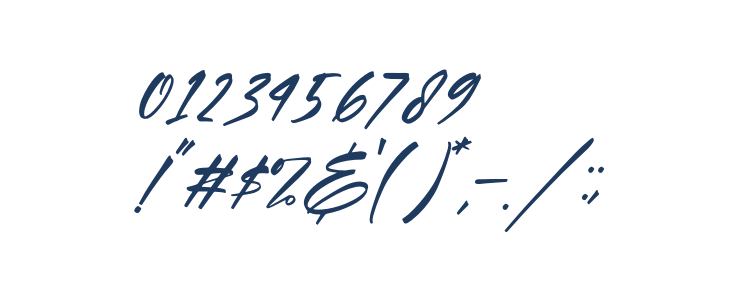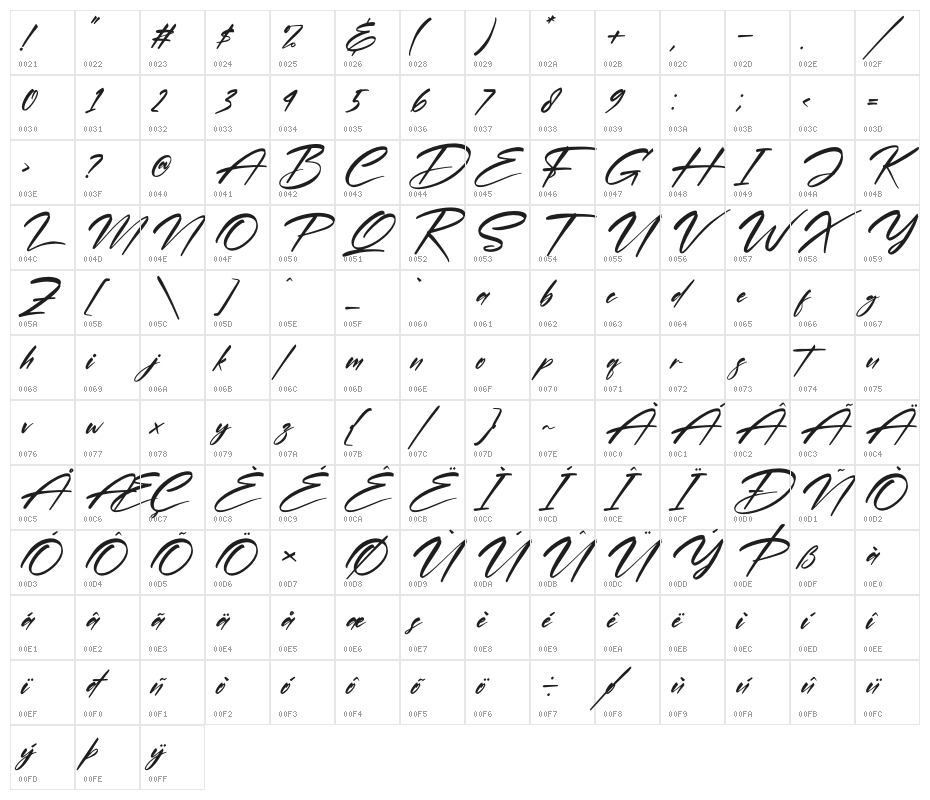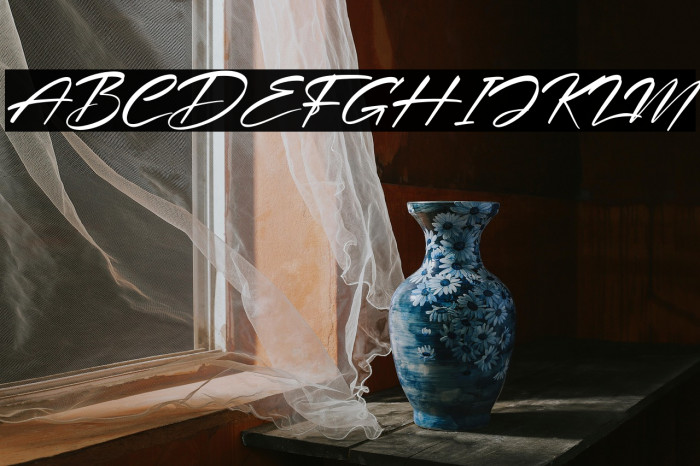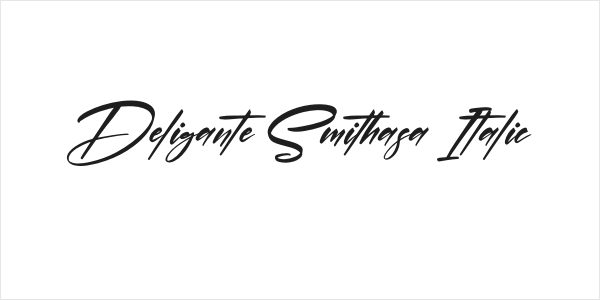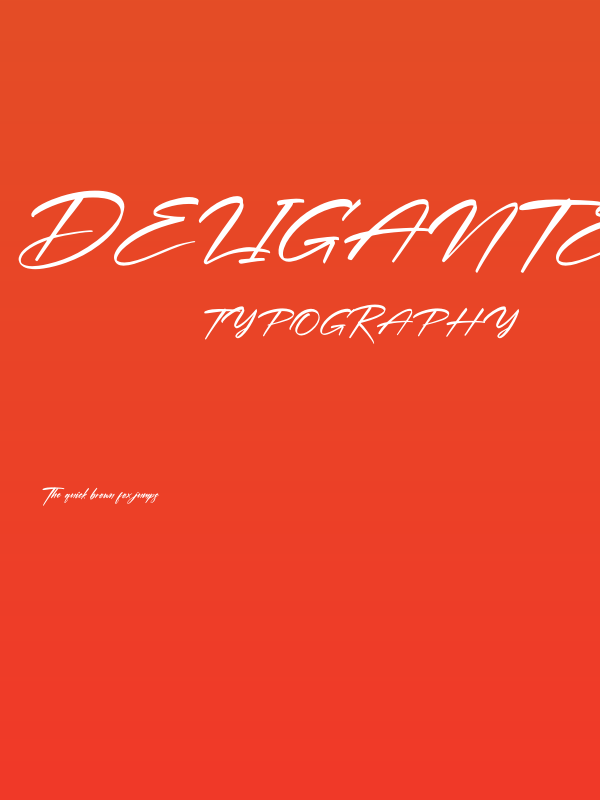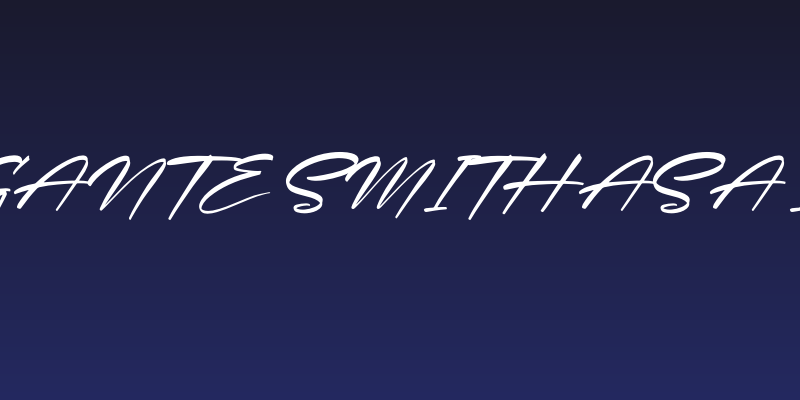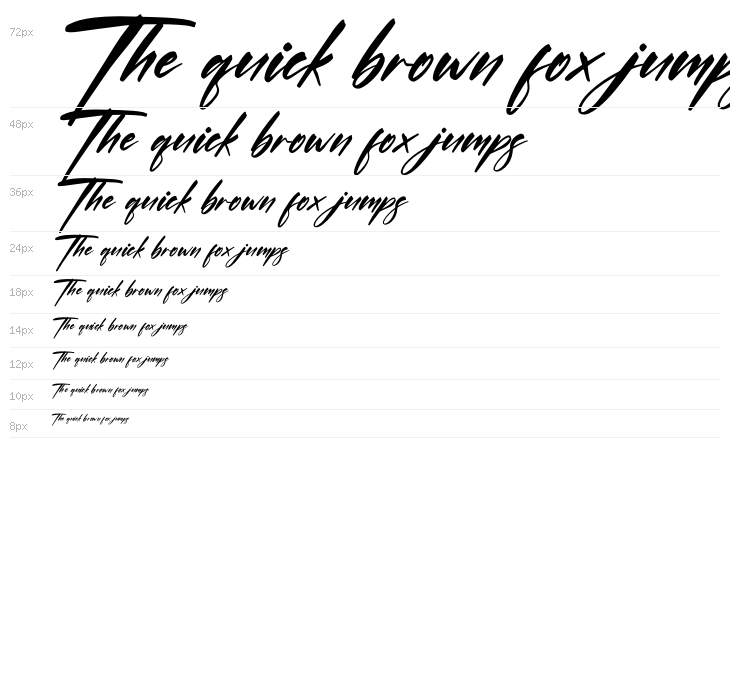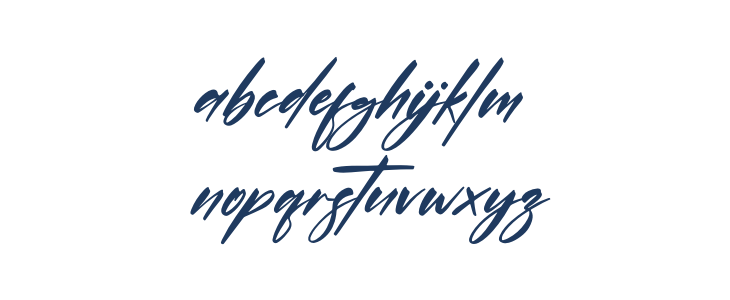
Deligante Smithasa Italic Font
Deligante Smithasa Italic Description
This font exudes a dynamic and elegant script style, characterized by its flowing, cursive letterforms. The uppercase letters are bold and sweeping, with an artistic flair that suggests movement and grace. The lowercase letters maintain a consistent slant, enhancing the fluidity of the text. Numbers and special characters are crafted with the same attention to detail, ensuring a cohesive appearance across all elements. The italic nature of the font adds a sophisticated touch, making it suitable for projects that require a personal or creative expression.
| Use Case | Logos, Invitations, Personal branding |
| Proposed Projects | Ideal for wedding invitations, greeting cards, branding, and logo design where a personal touch is desired. |